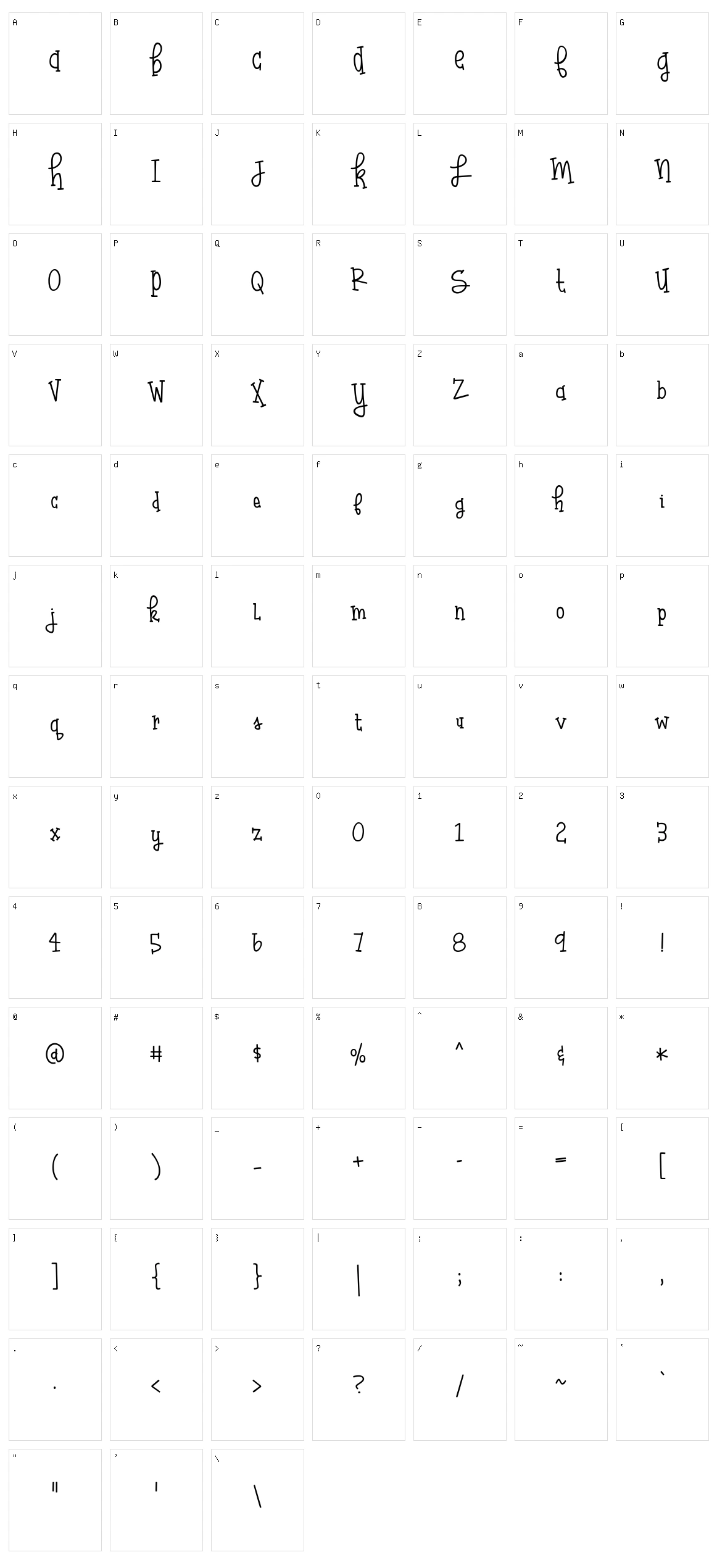
The free font Huffleclaw is carefully designed by Brittney Murphy Design, showcasing a thoughtful balance of creativity and usability and falls under the Cartoon font style. When you download the ZIP file, it contains only 54.93 KB of font files, making it lightweight and quick to download. Please review the license details below to understand permitted usage and distribution rights. If license information is not available, we recommend using this font for personal projects only or contacting the author directly for commercial usage permissions.